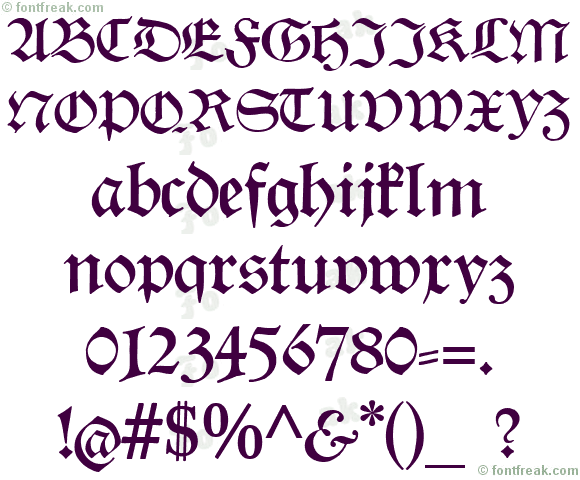
Renata CAT
About Renata CAT
The Renata CAT font, designed by Peter Wiegel, is a captivating display typeface that combines elegance with a touch of whimsy. As a decorative font, it embodies unique characteristics that make it stand out in various design contexts. The strokes exhibit a medium to bold weight, showcasing a balanced contrast that adds visual interest without compromising readability. The letterforms are generously spaced, allowing for excellent legibility, while the decorative elements introduce an artistic flair that is both playful and sophisticated.
This font is particularly well-suited for a range of creative applications. Its distinctive style makes it an ideal choice for wedding invitations, where elegance and charm are paramount. It also shines in movie posters, where an eye-catching typeface can significantly enhance visual storytelling. Restaurant menus can benefit from the Renata CAT font, adding a touch of personality that reflects the dining experience. Additionally, it can be effectively used for branding projects, allowing small business owners to craft a memorable identity that resonates with their target audience.
Graphic designers and content creators will find the Renata CAT font free download an invaluable resource in their toolkit. Its versatility caters to various themes and aesthetics, making it an excellent choice for those looking to leave a lasting impression. The font’s ability to blend decorative elements with practicality makes it a standout option for both print and digital projects. In a world filled with generic typefaces, Renata CAT offers a fresh and unique perspective, ensuring that your designs are not only visually appealing but also rich in character and style.
Author Peter Wiegel